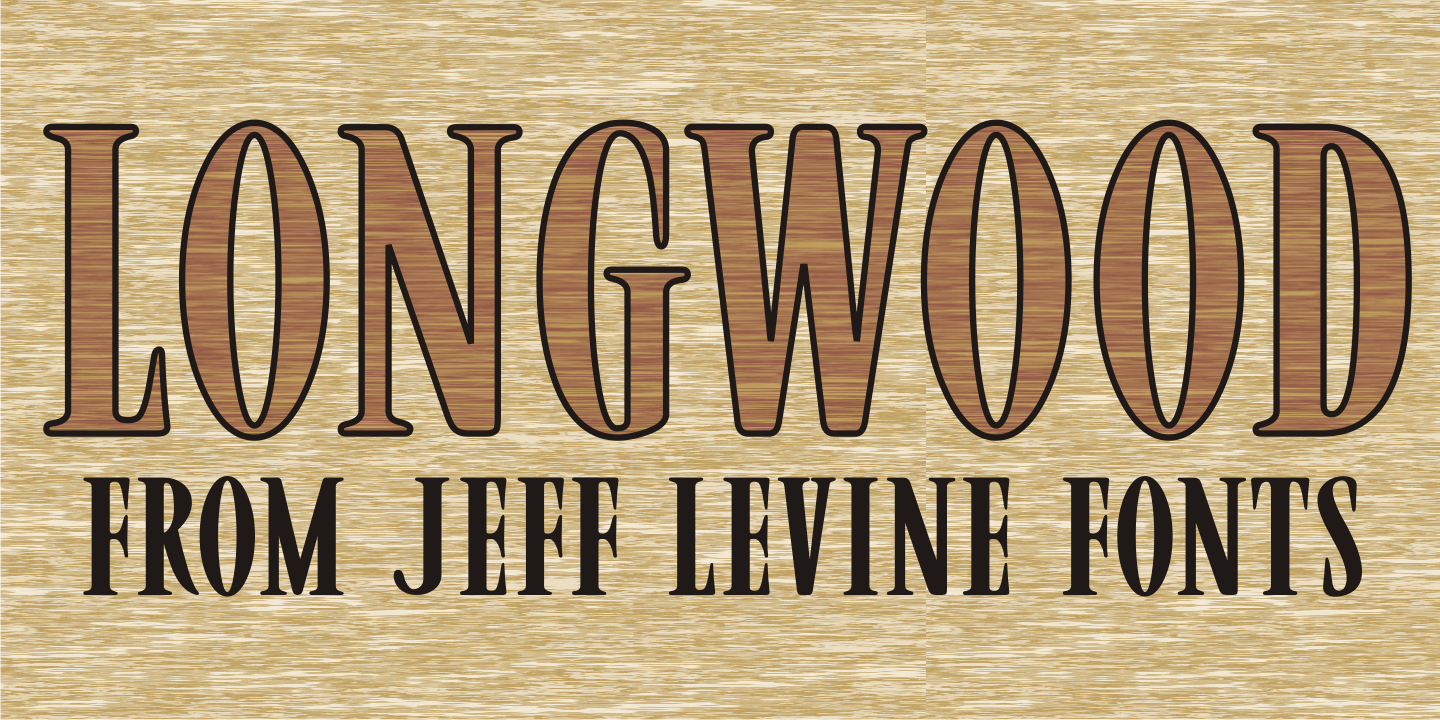
Longwood
Longwood JNL is a condensed Roman typeface based on wood type examples. The nonconforming line and curves make this a unique font that can replace any of the 'traditional' type designs used for titling.